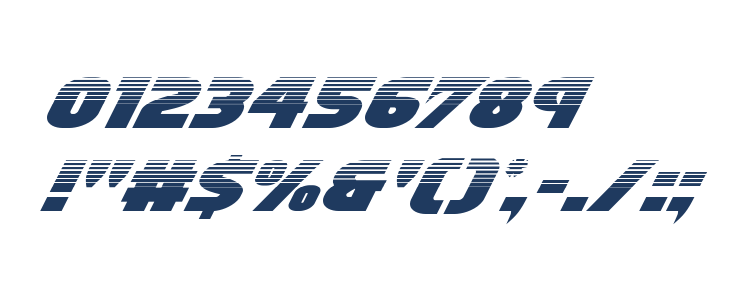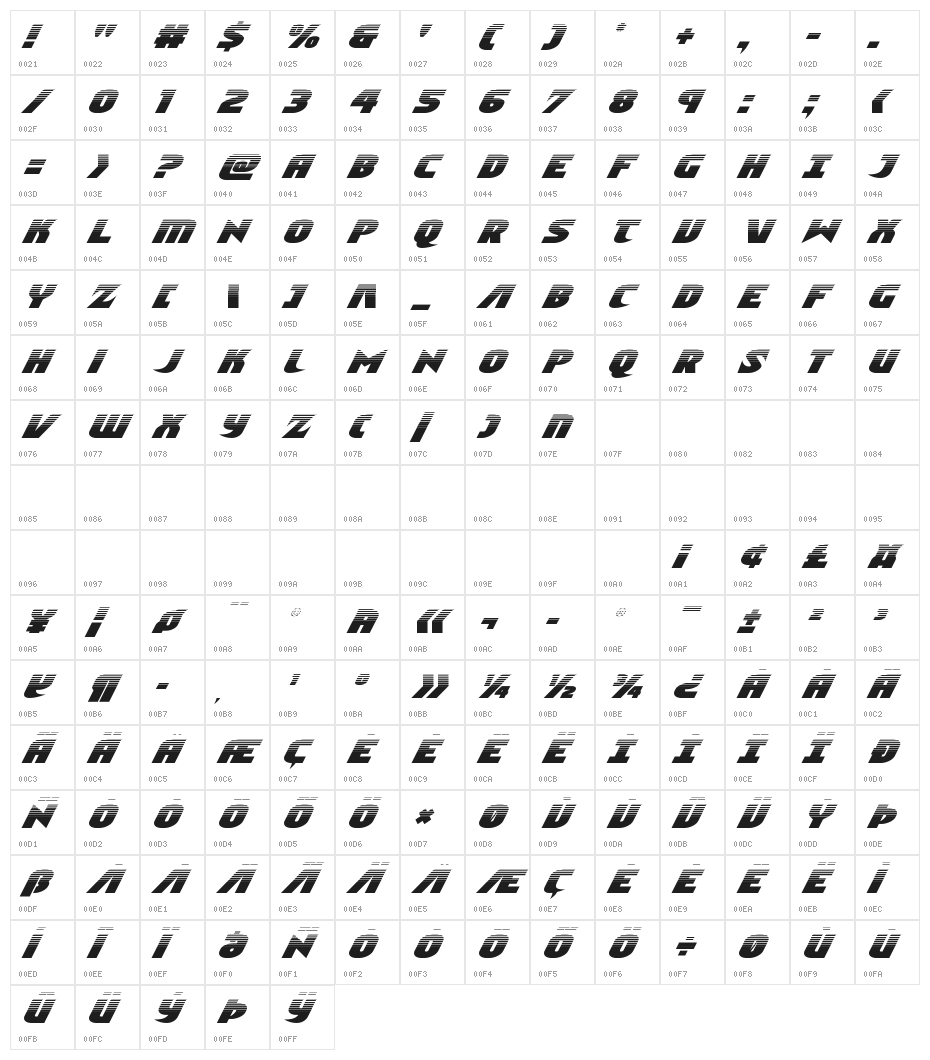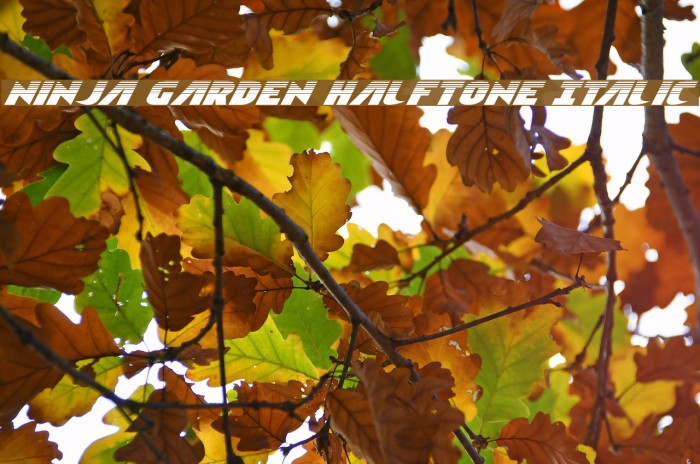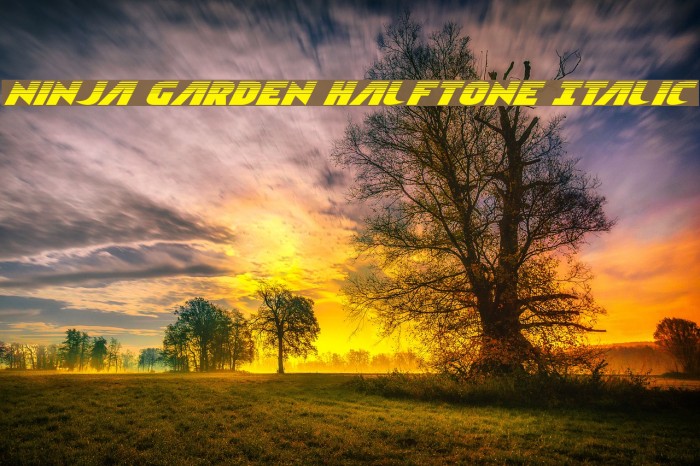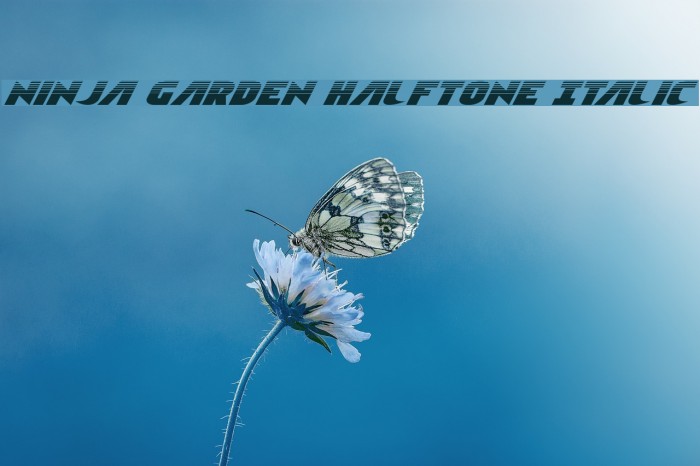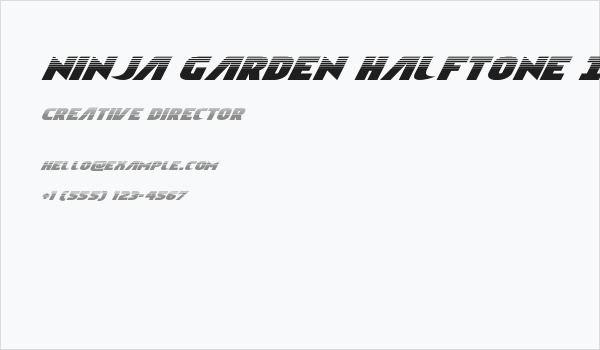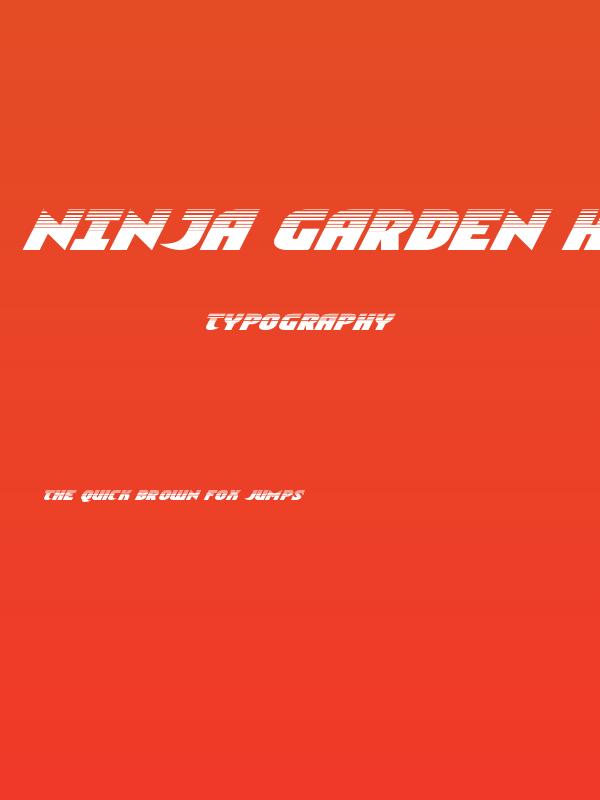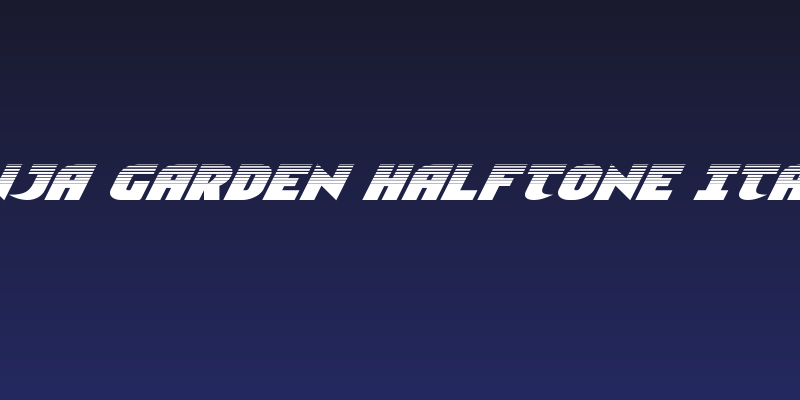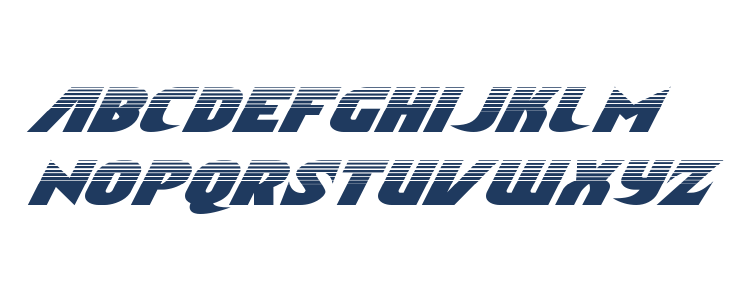
Ninja Garden Halftone Italic Font
Ninja Garden Halftone Italic Description
This font features a bold, dynamic design with a halftone effect that gives it a sense of movement and energy. The characters are italicized, adding to the sense of speed and fluidity. The uppercase and lowercase letters, along with numbers and special characters, are all designed with a consistent style that incorporates horizontal lines cutting through the characters, creating a unique visual texture. This design is reminiscent of retro or futuristic aesthetics, making it suitable for projects that require a bold and eye-catching typeface.
| Overall Style | Futuristic, Dynamic |
| Proposed Projects | Ideal for video game titles, sports branding, action movie posters, and dynamic advertising campaigns. |